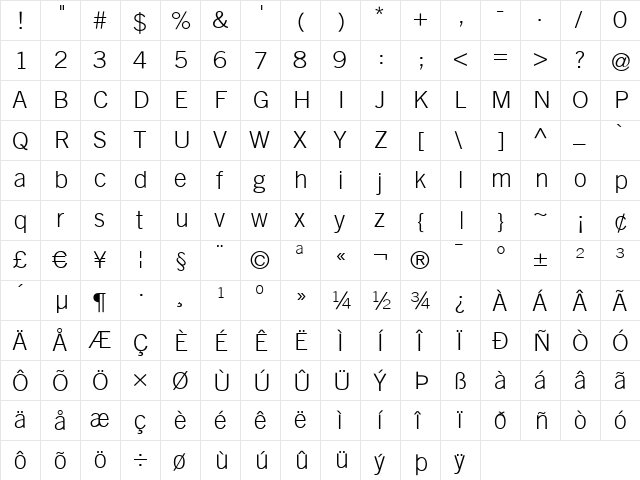
GoetheGothic Regular
Design Context for GoetheGothic Typeface
GoetheGothic takes a clean, functional approach — its unadorned letterforms prioritise legibility and work reliably across screen and print environments.
Font Pairing: Works well alongside a characterful serif or display font that can carry the expressive load while GoetheGothic handles the functional copy.
Pro Tip: Pair GoetheGothic with a display or serif font for headlines — its neutral character makes it an excellent supporting player in complex typographic systems.